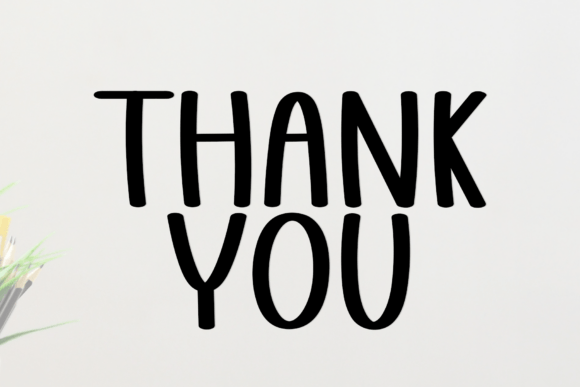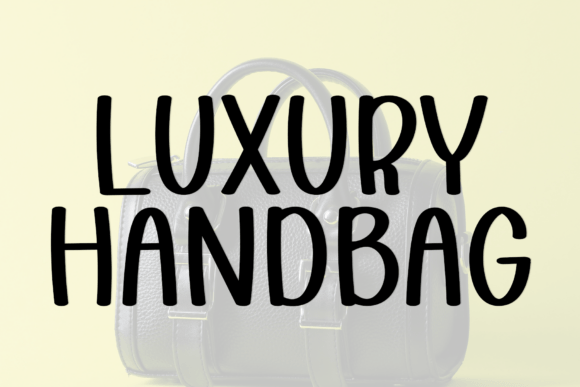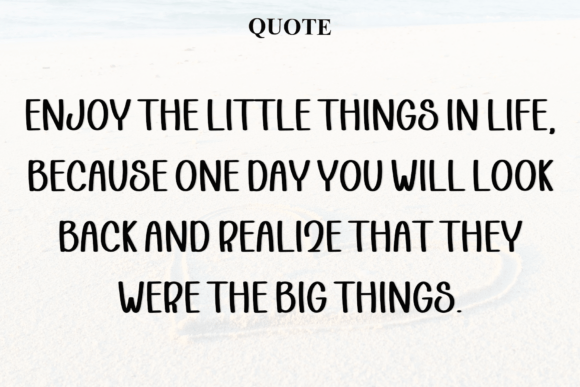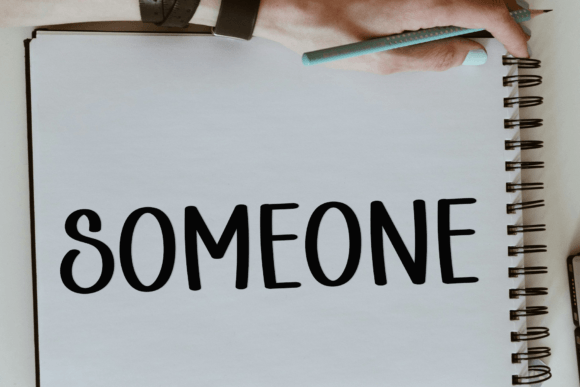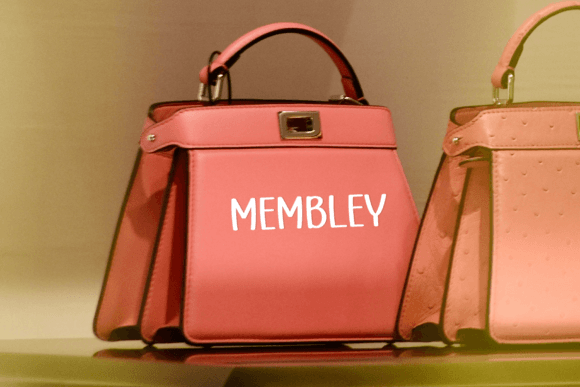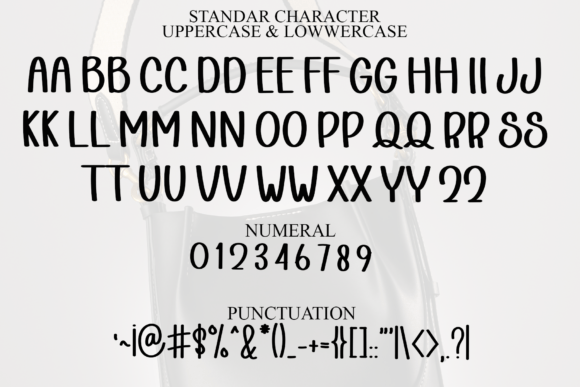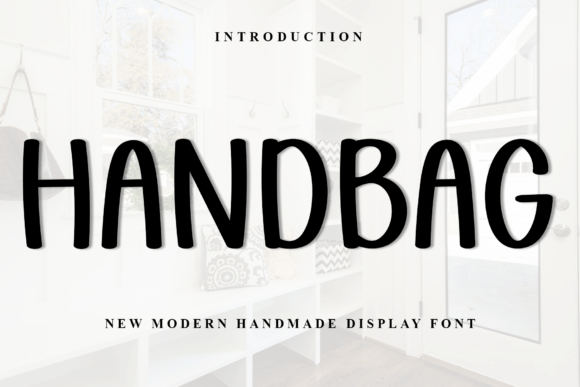
Introducing Handbag Font: Elevate Your Designs with a Touch of Elegance
In the world of typography, a font can make or break a design. For crafters, designers, and creative enthusiasts, finding the perfect font that combines beauty, uniqueness, and versatility is a treasure. This is where the Handbag Font comes into play, a stunning typeface that is about to revolutionize your design projects. With its soft, unique touch and distinctive strokes, Handbag Font is not just a font; it’s an artistic statement waiting to be explored.
The Beauty of Handbag Font
Handbag Font is crafted with a special character in mind. Its soft and unique design makes it stand out from the myriad of fonts available today. The distinctive strokes of this font give it a personality that is hard to ignore. Whether you’re working on a design project, crafting a brand’s identity, or simply experimenting with typography, Handbag Font brings a touch of elegance and sophistication that elevates your work.
One of the key features of Handbag Font is its versatility. This font isn’t limited to a specific type of project; it’s incredibly adaptable across various creative fields. From graphic design and branding to crafting and digital art, Handbag Font can be used in a multitude of applications. Its unique design ensures that your projects stand out, capturing the attention of your audience and leaving a lasting impression.
Wide Range of Characters
Handbag Font comes with a comprehensive set of characters, offering designers and crafters a wide array of options for their projects. This extensive character set allows for greater creativity and flexibility, enabling you to experiment with different styles and expressions. Whether you’re looking to add a personal touch to your designs or striving for a more professional look, Handbag Font has got you covered.
Ideal for Various Products and Projects
The natural and elegant style of Handbag Font makes it an ideal choice for a wide range of products and projects. From branding materials and advertisements to crafts and digital content, this font can enhance your designs, making them more appealing to a broad audience. Whether you’re targeting a specific niche or aiming for a universal appeal, Handbag Font can help you achieve your design goals.
Enhance Your Designs with Handbag Font
For designers and crafters looking to elevate their work, Handbag Font is a game-changer. Its ability to add a touch of elegance and uniqueness to any project is unparalleled. By incorporating Handbag Font into your designs, you’re not just choosing a font; you’re embracing a style that resonates with creativity and sophistication.
Handbag Font is more than just a typeface; it’s a design companion that brings beauty, versatility, and creativity to your projects. With its soft, unique touch, wide range of characters, and cross-platform compatibility, it’s an excellent choice for designers and crafters across various artistic and creative fields. Whether you’re looking to make a statement or simply enhance your designs, Handbag Font is ready to transform your creative endeavors into visually stunning works of art.